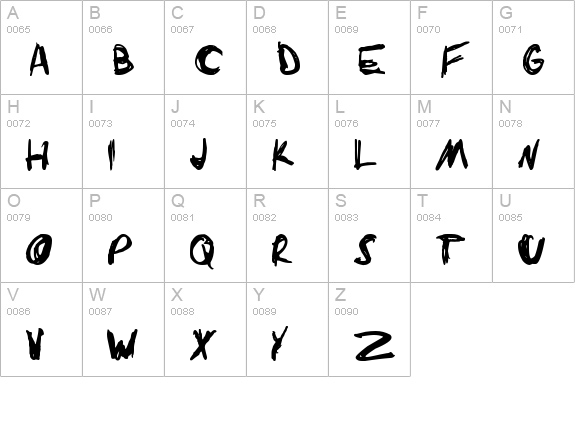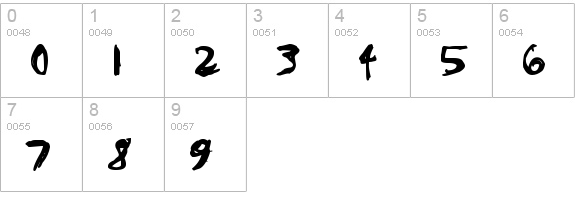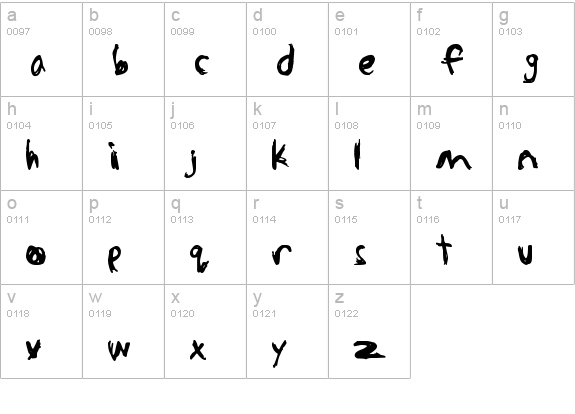
Introducing Sketchathon font, a whimsical and quirky typeface perfect for adding a touch of playfulness to your designs. With its hand-drawn style and unique character shapes, Sketchathon font brings a fun and creative vibe to any project. Whether you're designing greeting cards, posters, or social media graphics, this font is sure to stand out and make a statement. Best of all, Sketchathon font is completely free to download at FontsMarket.com. Simply visit the website and start using this charming font in your designs today. Let your imagination run wild with Sketchathon font and bring a touch of whimsy to your creative projects.